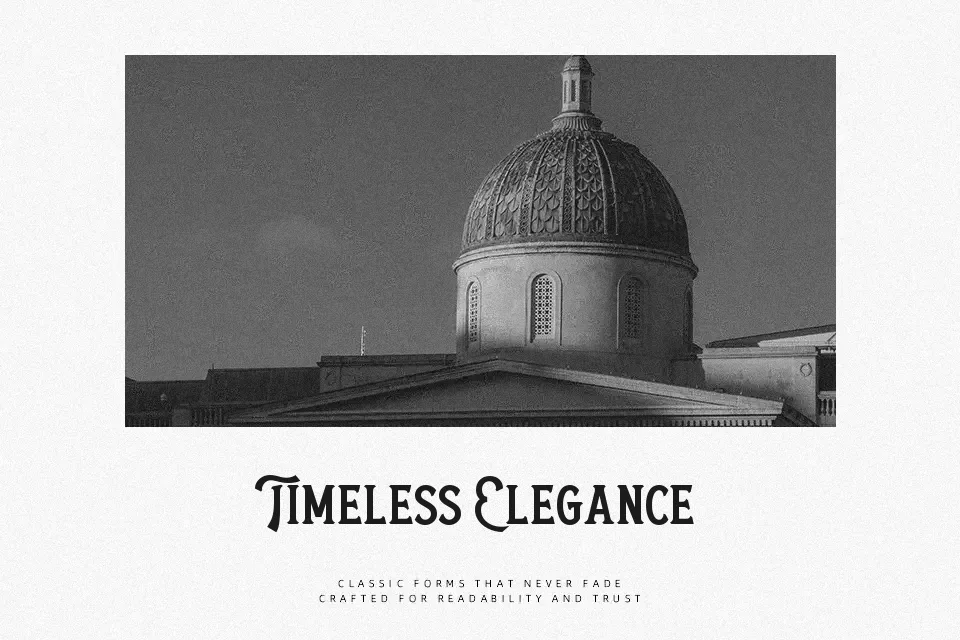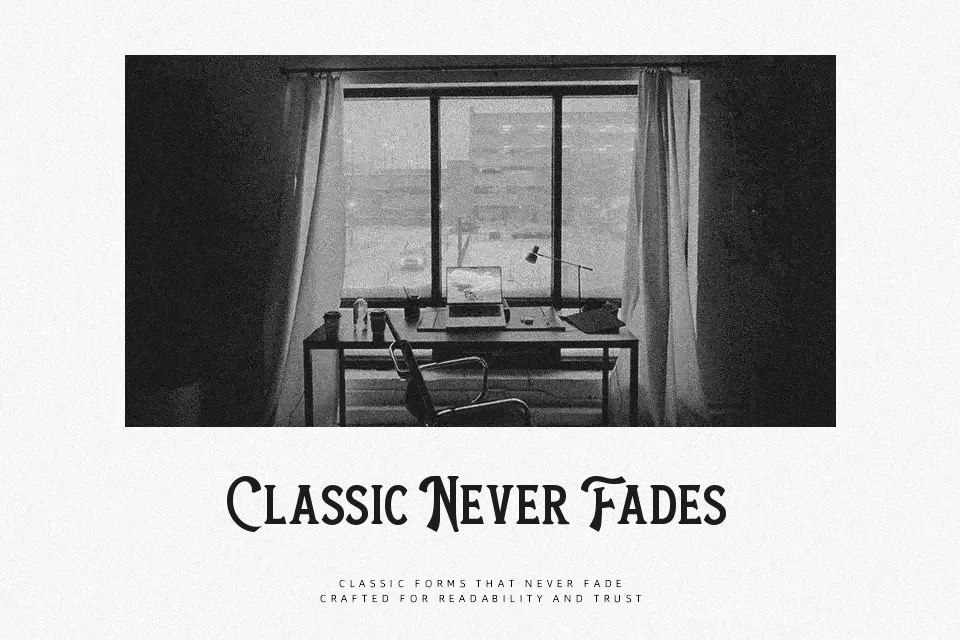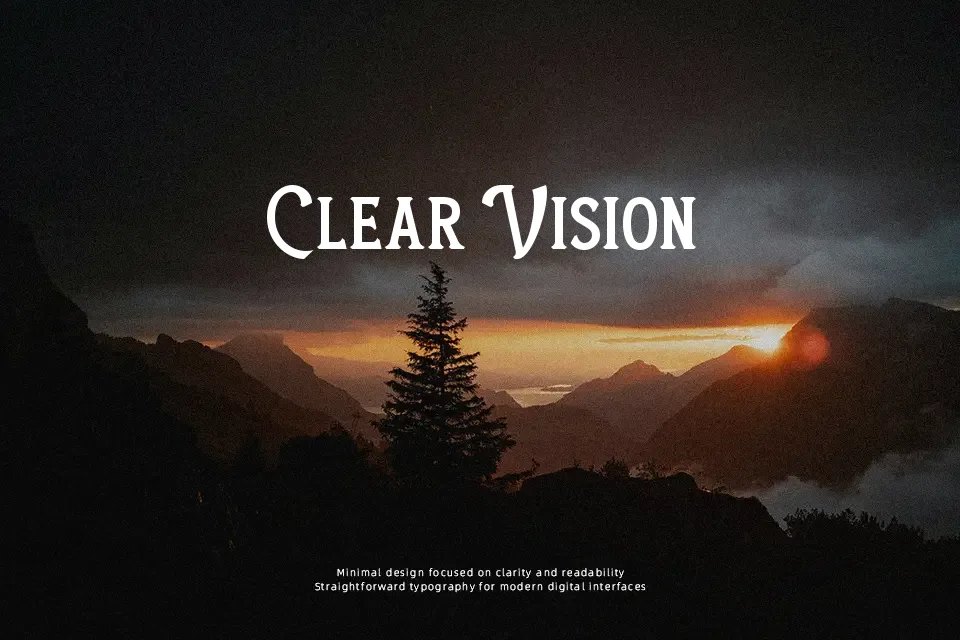
The Antique Font
The Antique Font showcases a structured vintage serif anatomy featuring strong vertical weight, moderate stroke contrast, and bold ornamental brackets. Uppercase characters maintain solid proportions with balanced letter spacing, allowing prominent display text and titling to remain crisp and visually commanding. While the sturdy serifs preserve letterform definition in short headlines and packaging concepts, the dense stroke distribution reduces reading comfort across continuous body copy.
Best For: vintage product packaging,retro poster headlines,craft beverage branding,nostalgic editorial titling
Not Ideal For: continuous body text,mobile interface labels,dense technical manuals,compact spreadsheet tables
Perfect for branding, headline, and packaging, with a bold and decorative style.